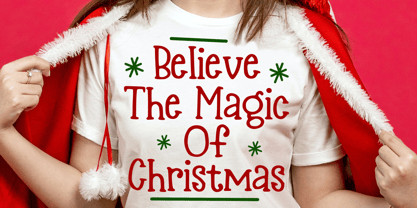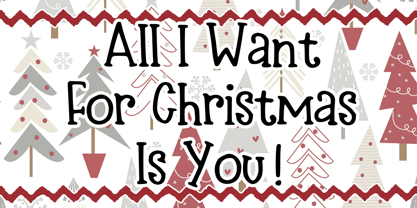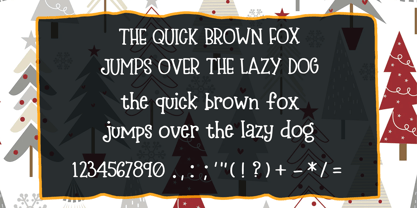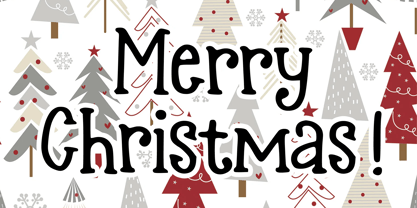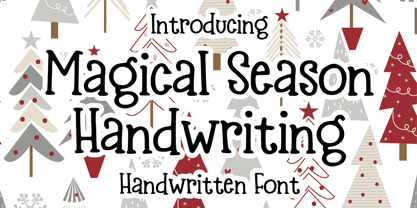
Magical Season Handwriting
by Mvmet
Magical Season Handwriting is the ideal Christmas font, combining versatility with a playful handwritten style. This font enhances a variety of design projects, making it perfect for stickers, t-shirt designs, stunning logo creations, magazine and book covers, comics, cartoon illustrations, daily typing, and much more. With its unique flair, this font adds a delightful touch to your designs, ensuring they stand out beautifully during the festive season and beyond.
Designers: Gabriel Valentinus
Foundry: Mvmet